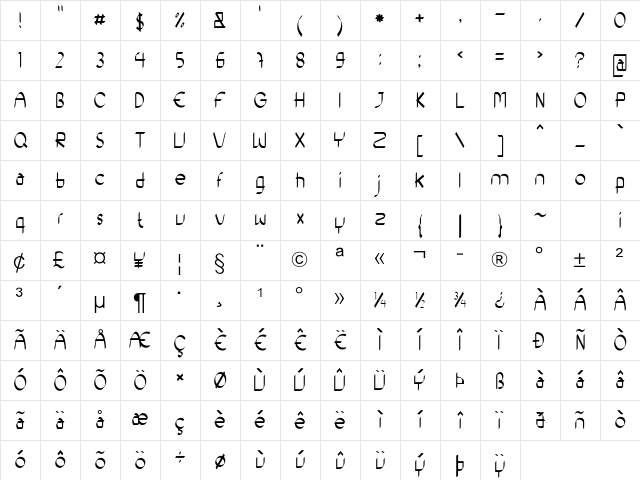
Selogia Regular
Design Context for Selogia
Selogia is a composed and adaptable typeface that performs quietly and consistently across a wide range of design contexts.